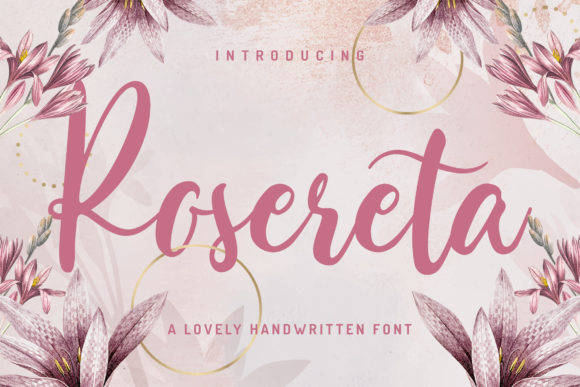
Introducing Rosereta Font, a symphony of elegance and charm designed by the talented almarkhatype. As a captivating script font, Rosereta is meticulously crafted to elevate your designs with a touch of timeless sophistication.
Imagine your wedding invitations adorned with the graceful curves and delicate strokes of Rosereta. Its alluring beauty will transform your special day into a captivating celebration. The intricate flourishes and flowing lines of Rosereta will captivate your guests, leaving an unforgettable impression of your exquisite taste.
Beyond wedding stationery, Rosereta's versatility shines through in countless design possibilities. Enchant your social media posts with alluring quotes, or create breathtaking logos that command attention. The possibilities are endless, limited only by your boundless creativity.
Rosereta is not just a font; it's an expression of your individuality, a bold reflection of your personal style. Whether you're a seasoned designer or simply seeking to add a touch of elegance to your projects, Rosereta Font will unleash your creativity and inspire you to create designs that leave a lasting impression.
Indulge in the captivating charm of Rosereta Font. Let its exquisite beauty transform your creations into works of art. Experience the magic of Rosereta today, and let your designs bloom with elegance and grace!